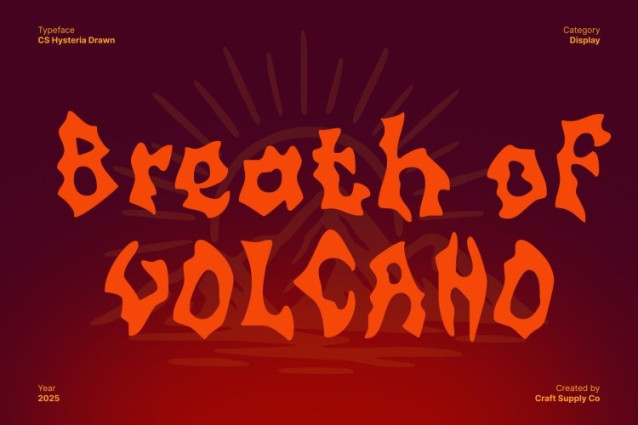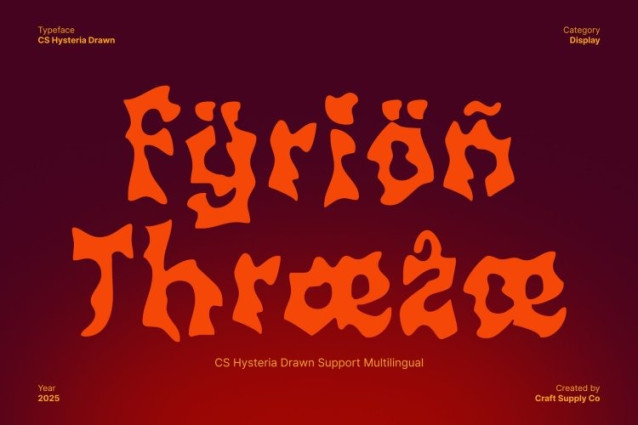
CS Hysteria Drawn Font
CS Hysteria Drawn Font This is a black metal display font designed to deliver raw intensity and visual rebellion. Its jagged spikes and chaotic strokes channel the ferocity of extreme music, giving every letter a bold, dramatic presence. The font radiates power and darkness, making it ideal for designs that demand a strong, edgy aesthetic.
Soft Hand-Drawn Effect for Unique Expression
While aggressive in style, the drawn effect softens this font, introducing organic, hand-crafted curves that make the characters feel dynamic and alive. Each glyph carries subtle imperfections that balance the chaotic energy with artistic warmth. This hand-drawn texture transforms the font from purely harsh to visually rich, giving it an expressive, approachable edge without losing its intensity.
Perfect for Band Logos, Posters, and Edgy Projects
This font excels in extreme and underground design contexts. Its bold, jagged forms are perfect for metal band logos, album covers, concert posters, merchandise, and other visually striking projects. The combination of soft drawn textures and aggressive shapes ensures designs are memorable, dramatic, and full of character.
A Typeface That Channels Rebellion with Artistic Flair
This font offers designers a unique balance of raw power and handcrafted personality. Its black metal roots capture the spirit of intensity and rebellion, while the soft drawn effects add depth and artistic nuance.